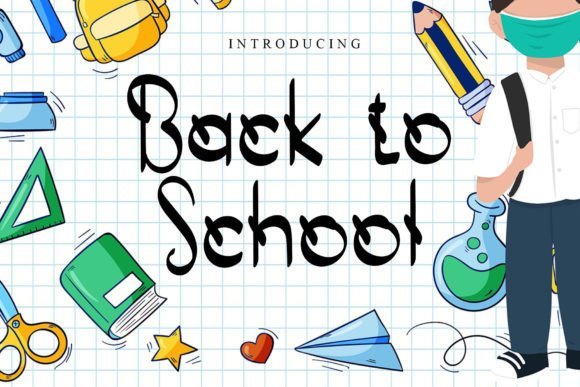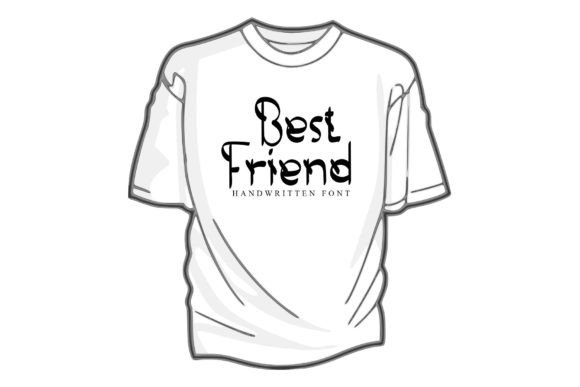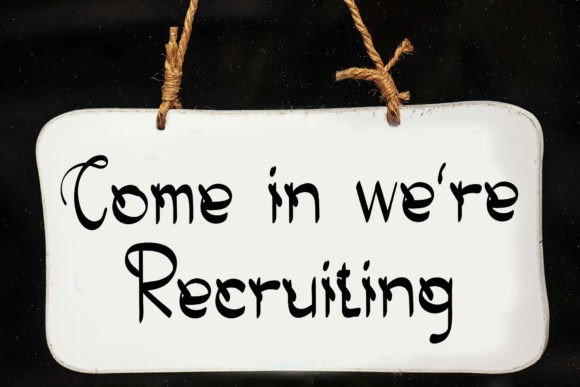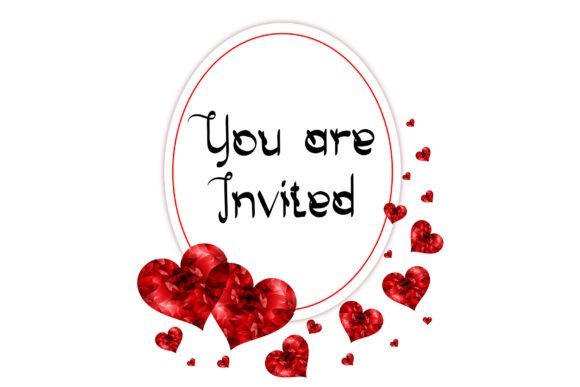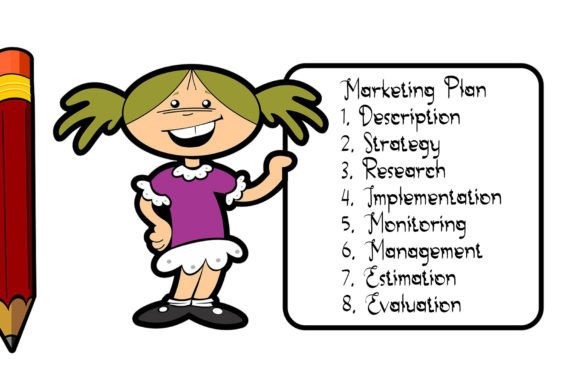
The Perfect Font for a Fresh New Start: Back to School Font
Do you remember the excitement of rummaging through your backpack for fresh notebooks and colorful pens on the first day of school? As a designer, you get to relive that magic every time you start a new project. And what better way to kick off a new design than with a font that’s as sweet and friendly as a handwritten note from a loved one?
Meet Back to School Font, a charming handwritten font that’s perfect for a wide range of designs, from educational materials to social media graphics. Its unique style makes it incredibly versatile, and the only limit is your imagination! Whether you’re a seasoned designer or just starting out, Back to School Font is a valuable addition to your toolkit, offering endless possibilities for creative expression.
Back to School Font Key Features
- Unique Characteristics: The font features a playful, cursive design with rounded edges and a mix of uppercase and lowercase letters, adding a touch of whimsy to educational materials.
Back to School Font Review
Overall, I’d say the “Back to School Font” is a decent choice for your educational designs. ✨ One of the things that works well is the modern and playful feel it brings to the table. It’s perfect for creating a fun and engaging atmosphere in learning materials. The font is also highly legible, making it great for body text.
However, there are some limitations to consider ⚠️. The font’s lack of serif lines can make it difficult to read in certain situations, especially when used for headings. Additionally, the font’s design may not be ideal for more formal or professional educational materials. It’s also worth noting that the font’s availability is limited to desktop use only, which might be a drawback for web designers.
In terms of styles, the font comes in two main variations: bold and regular. ✨ While the bold version is great for creating emphasis, the regular version can feel a bit too plain at times. It would be nice to see more style variations or even a full family of fonts to complement the “Back to School Font”.
Overall, I’d give the “Back to School Font” 3.5 out of 5 stars. It’s a solid choice for casual educational designs, but it may not be the best fit for more formal or complex projects.
Pros and Cons:
- ✨ Modern and playful feel
- ✨ Highly legible
- ⚠️ Not ideal for formal or professional educational materials
- ⚠️ Limited style variations
The “Back to School Font” is perfect for creating eye-catching designs for back-to-school campaigns, educational institutions, and related events. Use it to create engaging social media posts, flyers, posters, and presentations. Some tips to get the most out of this font include:
- Combine it with bright and bold colors to create a playful atmosphere.
- Use it to highlight important information or create a sense of hierarchy in your design.